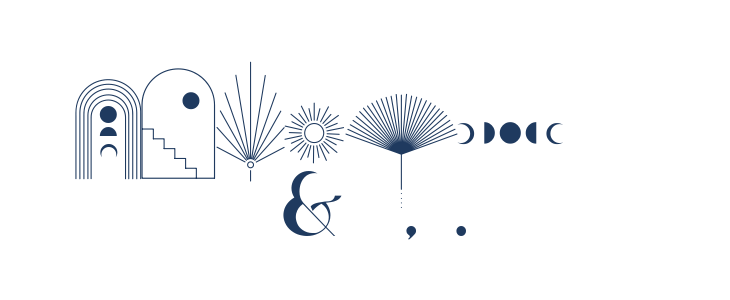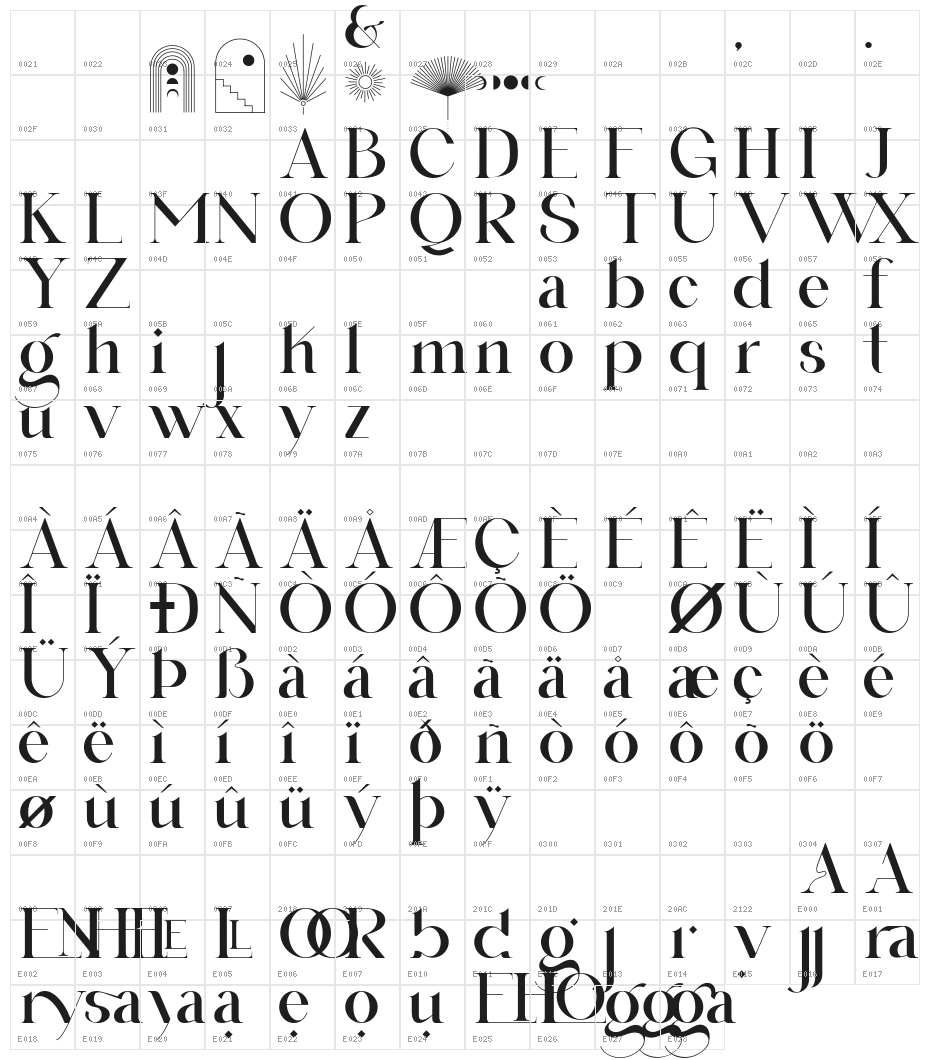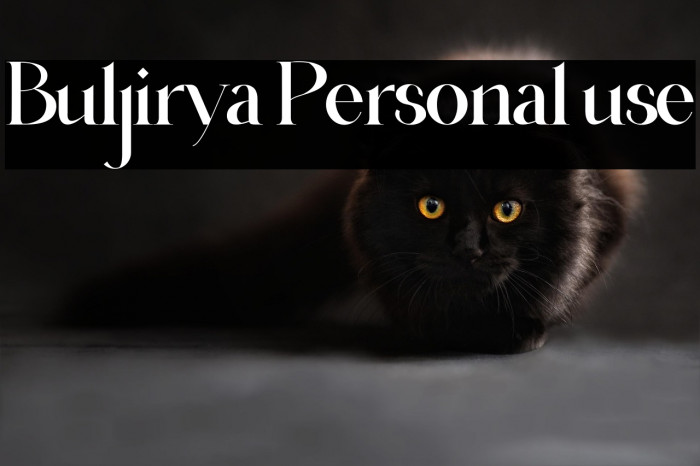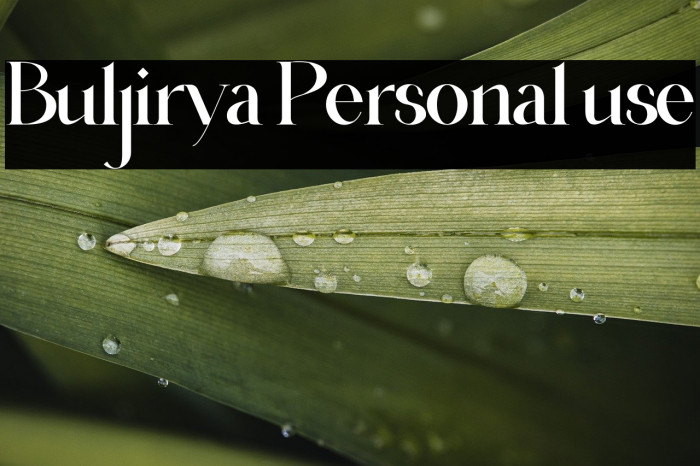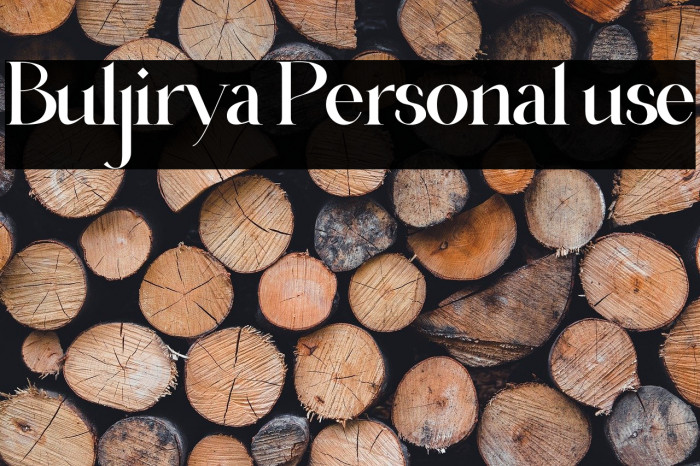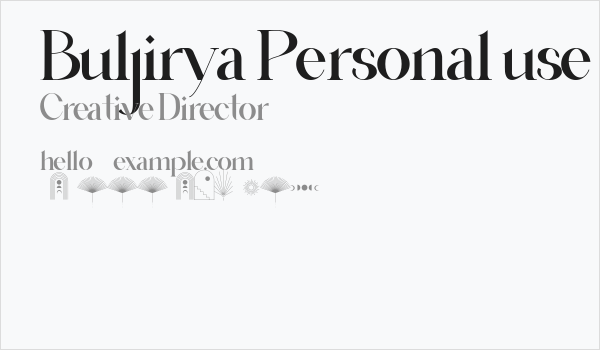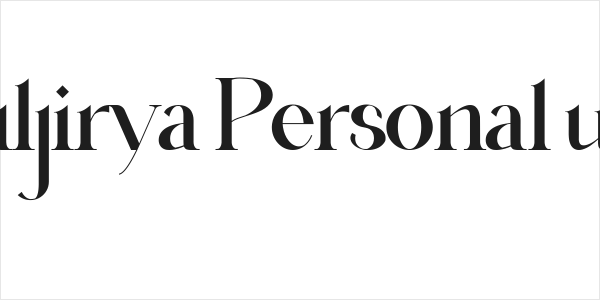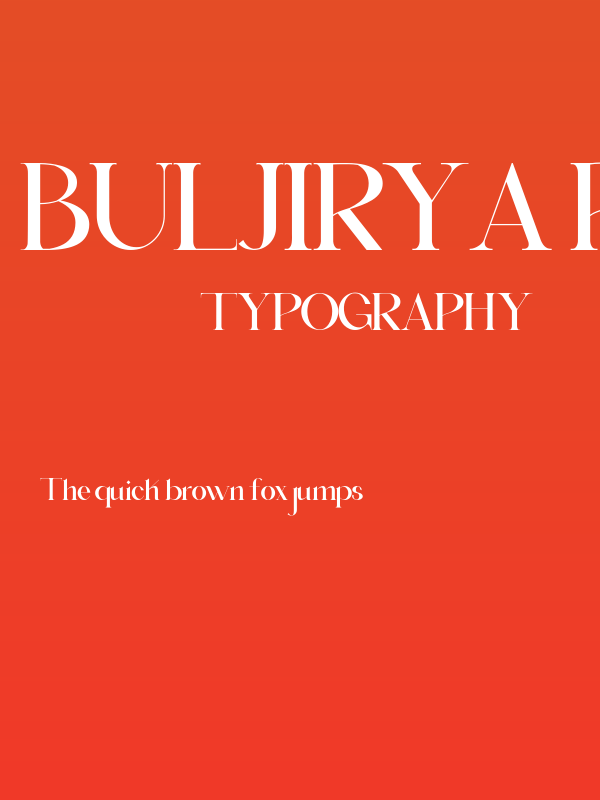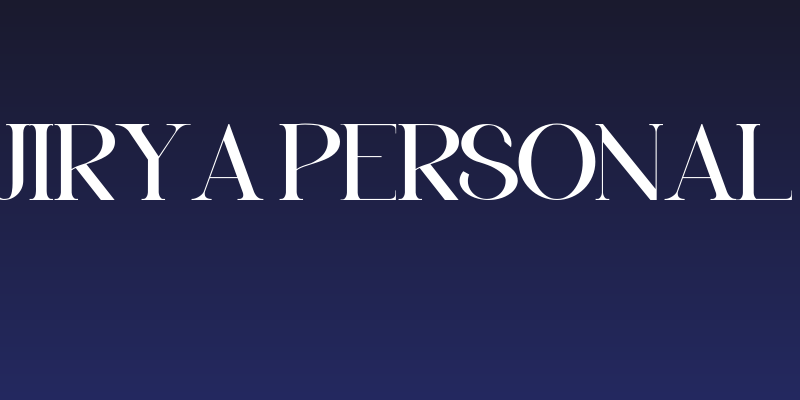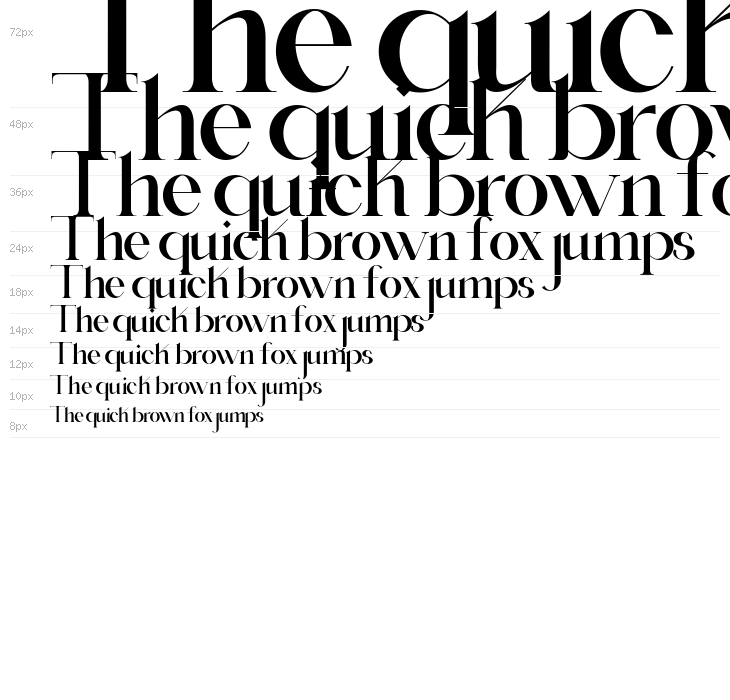
Buljirya Personal use Font
Buljirya Personal use Description
This font features a unique blend of modern and classic elements, characterized by its high contrast between thick and thin strokes. The uppercase letters exhibit a sophisticated elegance with sharp serifs and a refined curvature, while the lowercase letters maintain a consistent style with a slightly playful touch. The overall design is both stylish and versatile, making it suitable for a wide range of creative applications. The special characters and numerals are designed with the same attention to detail, ensuring a cohesive look across all text elements.
| Use Case | Headlines, Logos, Editorial design |
| Proposed Projects | Ideal for branding, editorial design, luxury packaging, and high-end invitations. |